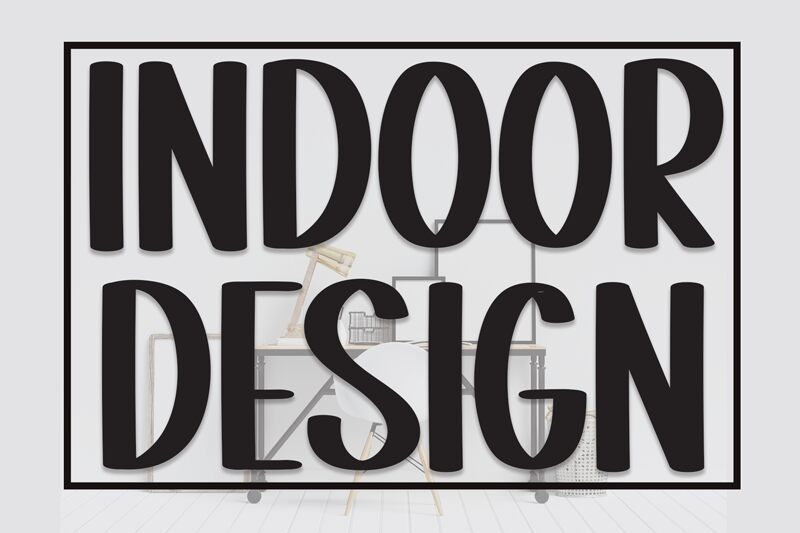
Indoor Design
Indoor Design, from the creative mind of Scratchones, embodies the charm of a handwritten note with the precision of a professional script.
This condensed font marries casual elegance with a neat finish, making it an exceptional choice for designers looking to inject personality into their work without sacrificing sophistication. Whether gracing the pages of an editorial project or adding a bespoke touch to branding materials, Indoor Design's versatility ensures it stands out in applications that demand both intimacy and impact.
Embrace this font's unique flair to give your creative endeavors a signature style that speaks volumes.